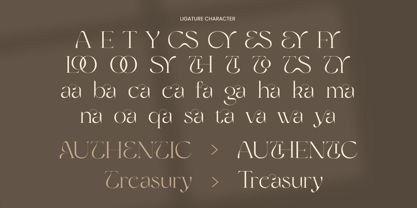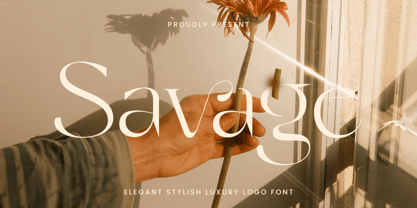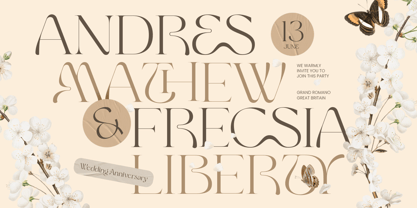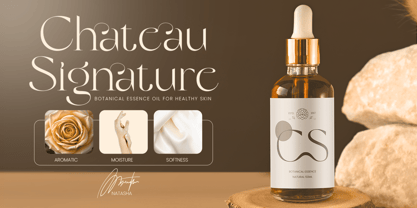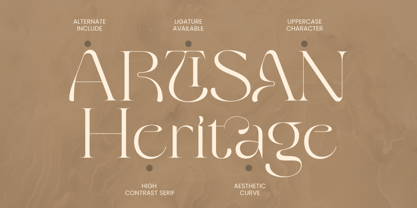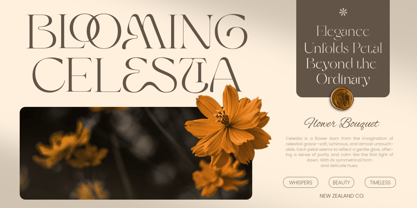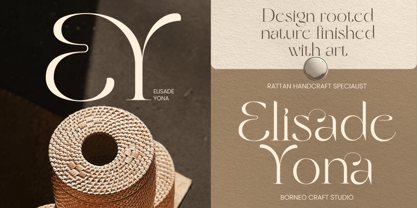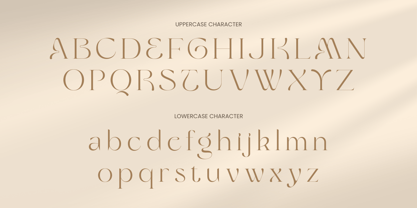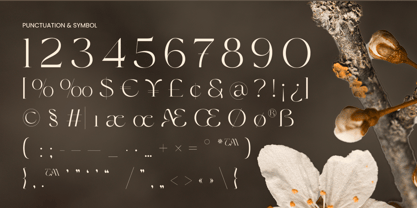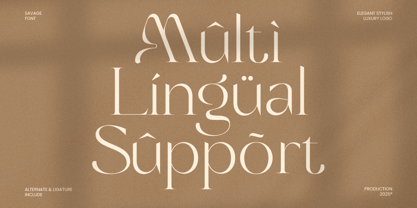
Savage is an elegant stylish luxury logo font crafted to deliver a bold sense of refinement and premium appeal. With polished letterforms and a confident modern elegance, this typeface creates a high-end tone that feels exclusive, fashionable, and impeccably curated.
Perfect for luxury logos, brand identity, fashion campaigns, beauty packaging, jewelry labels, perfume branding, and upscale editorial design, Savage elevates headlines, signage, invitations, product packaging, and social media visuals with a clean yet lavish presence. Its stylish construction helps your typography feel expensive and intentional across both minimalist layouts and statement compositions.
Whether you’re building a boutique brand, launching a premium product line, or designing a sophisticated logotype system, Savage brings luxury character that keeps your brand memorable in both print and digital environments.
Savage – Luxury Logo Font Features
Elegant luxury letterforms designed for premium logotypes
Stylish, modern presence for high-end branding and identity
Perfect for fashion, beauty, fragrance, and boutique packaging
Great for logos, headlines, editorials, and upscale promotions
Includes uppercase, lowercase, numerals, and punctuation
Crisp readability for both digital screens and print production
OpenType features for refined typographic flexibility
Multilingual Support Afrikaans, Albanian, Asu, Basque, Bemba, Bena, Breton, Chiga, Cornish, Dutch, English, Estonian, Filipino, Finnish, Friulian, Galician, German, Gusii, Indonesian, Irish, Italian, Kabuverdianu, Kalenjin, Kinyarwanda, Luo, Luxembourgish, Luyia, Machame, Makhuwa-Meetto, Makonde, Malagasy, Manx, Morisyen, North Ndebele, Nyankole, Oromo, Portuguese, Quechua, Romansh, Rombo, Rundi, Rwa, Samburu, Sango, Sangu, Scottish Gaelic, Sena, Shambala, Shona, Soga, Somali, Spanish, Swahili, Swedish, Swiss, and more.
Make your branding look fearless and luxurious with Savage - crafted for elegant logo impact. 🖤✨